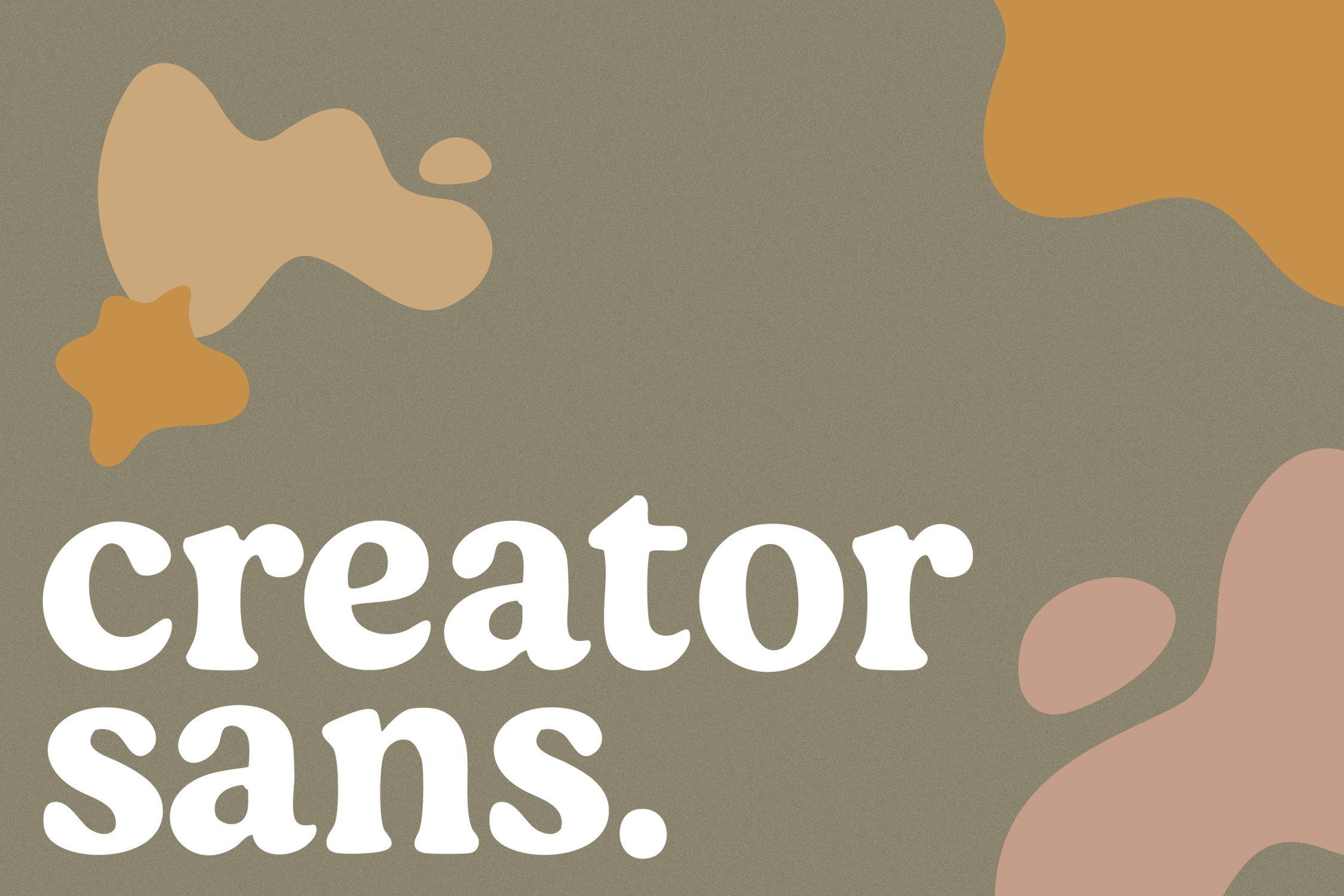
Creator Sans - Bold Display Font
Introducing Creator Sans
This is a professionally crafted, rounded display font which looks beautiful on printed stationary, packaging and also for digital artwork.